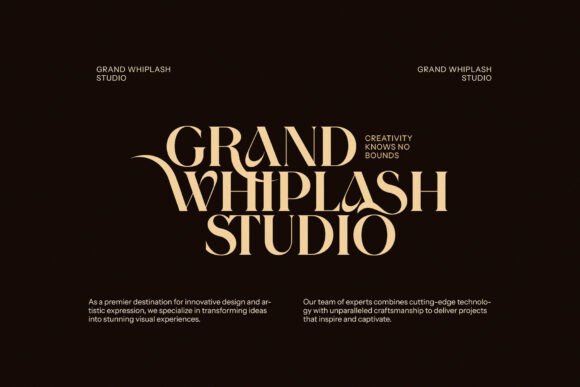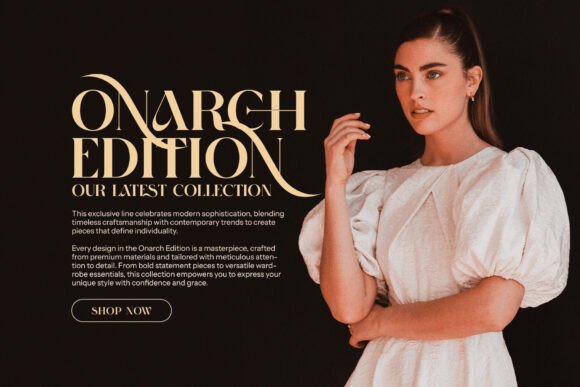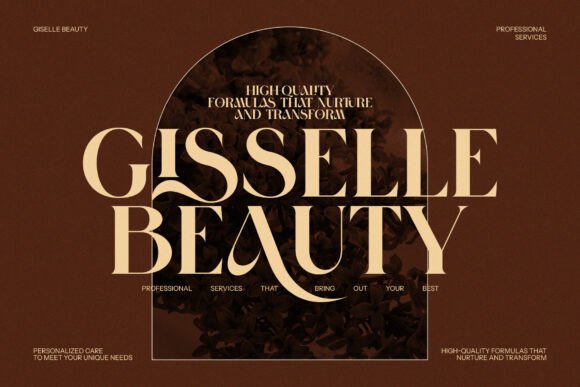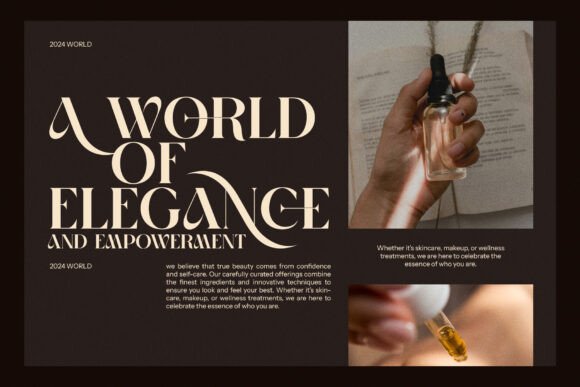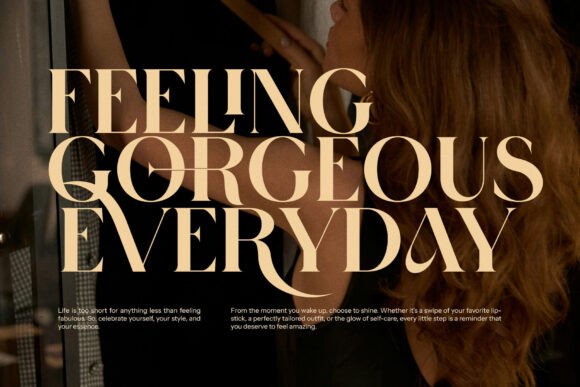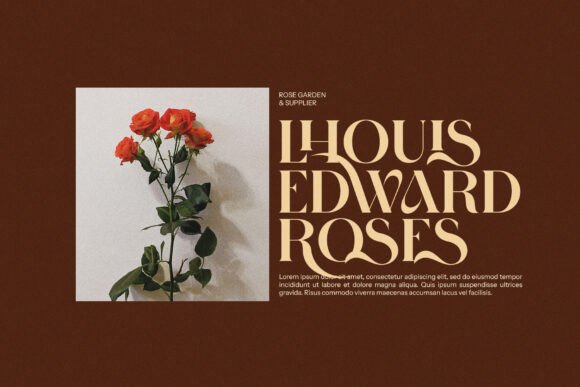
Introducing Dave Moris Font: Elevate Your Designs with Elegance and Sophistication
In the world of typography, a font can make or break the visual appeal of a design. For designers and crafters seeking to add a touch of luxury and sophistication to their projects, Dave Moris Stylish Display Serif Font is an exceptional choice. This modern, elegant typeface is meticulously designed to bring creativity and refinement to any project, making it perfect for those who strive for perfection.
Aesthetic Appeal and Unique Features
Dave Moris Font stands out with its sleek design and refined serifs, making it an ideal choice for projects that demand both style and readability. One of its most striking features is the inclusion of intricate ligatures and unique alternate characters. These ligatures beautifully blend multiple letters into distinctive, seamless shapes, giving your typography a one-of-a-kind, artistic flair. Such a unique approach to type design not only adds an element of sophistication but also ensures that your designs capture attention and communicate professionalism.
Versatility Across Various Applications
The versatility of Dave Moris Stylish Display Serif Font is one of its most compelling attributes. Its applications are vast and varied, ranging from corporate identities and boutique brands to food labels and high-end marketing materials. For designers working on logos and branding, this font delivers a premium look that is both stylish and memorable. The font’s elegance and sophistication also make it suitable for use in websites, magazines, product packaging, and advertisements, ensuring that your designs stand out with impact across different mediums.
For designers and crafters, finding the right font can often be a daunting task. Dave Moris Font simplifies this process by offering a typeface that is not only aesthetically pleasing but also highly functional. Its carefully crafted ligatures provide a creative edge, allowing designers to produce work that is both visually appealing and artistically unique. Whether you’re aiming to create a bold statement or a subtle impression, Dave Moris Font adapts seamlessly to your design needs.
Why Choose Dave Moris Font?
There are several reasons why Dave Moris Stylish Display Serif Font should be your go-to choice for your next project:
- Elegance and Sophistication: The font’s sleek design and refined serifs bring an unparalleled level of sophistication to any project.
- Unique Ligatures: Intricate ligatures and alternate characters offer a creative and artistic flair to your typography.
- Versatility: Suitable for a wide range of applications, from logos and branding to websites and product packaging.
- Readability: Despite its stylized appearance, the font maintains high readability, making it perfect for both display and body text.
- Professionalism: Adds a touch of luxury to your designs, ensuring they communicate professionalism and quality.
Tips for Using Dave Moris Font
To maximize the impact of Dave Moris Font, consider the following tips:
- Pair with Simplicity: Allow the font’s elegance to shine by pairing it with simpler design elements.
- Experiment with Ligatures: Take advantage of the unique ligatures to add a creative touch to your typography.
- Consider Contrast: Use contrasting colors or weights to enhance readability and visual appeal.
- Be Mindful of Scale: Ensure the font size complements the overall design, maintaining readability across different devices.
Dave Moris Stylish Display Serif Font is a powerful tool for designers and crafters aiming to elevate their projects with elegance and sophistication. Its unique blend of intricate ligatures, sleek design, and refined serifs makes it an exceptional choice for a wide range of applications. By incorporating Dave Moris Font into your designs, you’re not just choosing a typeface; you’re embracing a new level of creativity and professionalism. Whether you’re working on a high-end marketing campaign, a boutique brand, or a personal project, Dave Moris Font is sure to leave a lasting impression.
Discover the potential of Dave Moris Stylish Display Serif Font today and transform your designs with its luxurious and artistic flair.